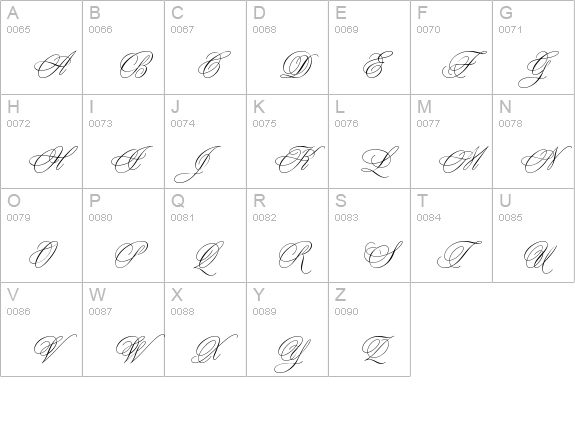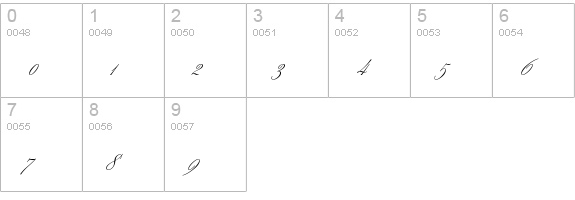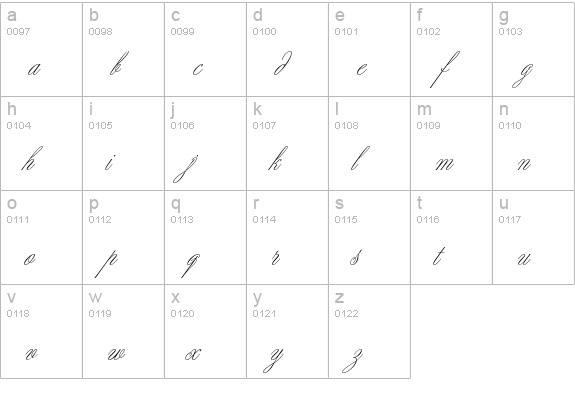
Young Baroque LET Plain:1.0 Font Details
Young Baroque LET Plain:1.0 is a stunning font that embodies the elegance and intricacy of the Baroque era. Its ornate details and graceful curves make it a perfect choice for projects that require a touch of sophistication and grandeur. This font exudes a sense of timeless beauty and sophistication, making it ideal for invitations, wedding stationery, and other special occasions. Its classic design will add a touch of luxury to any project. Young Baroque LET Plain:1.0 is available for free download at FontsMarket.com, making it easily accessible for anyone looking to add a touch of Baroque style to their designs. Download this exquisite font today and elevate your projects with its timeless beauty.